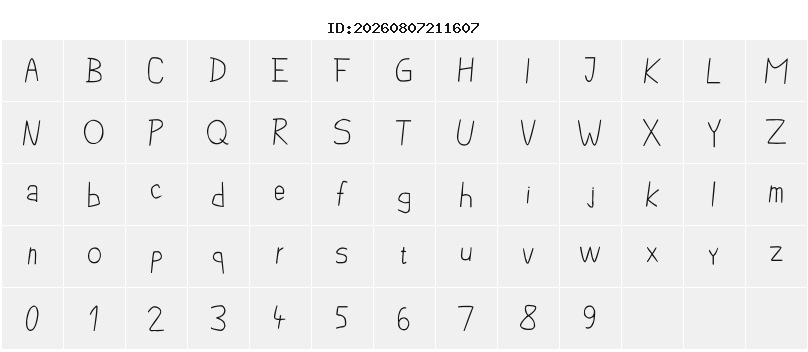
pencilCASE Preview
• Font Name: pencilCASE
• Full Font Name: pencilCASE
About pencilCASE.ttf
pencilCASE.ttf is a modern, elegant sans-serif font designed for ultimate readability and visual harmony. Perfect for branding, headlines, web design, and print materials.